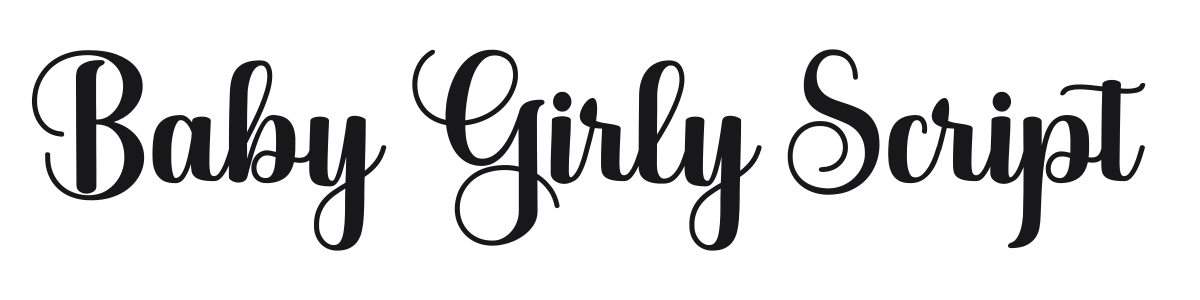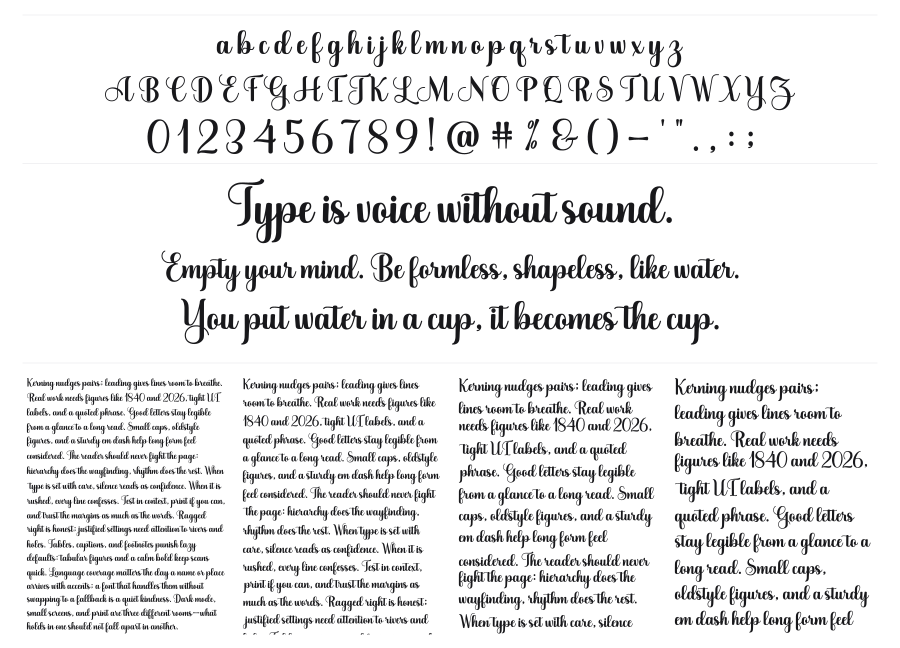
Baby Girly Script
Baby Girly Script is a bold, looping casual script with sweeping connected letters and lively stroke contrast. Tall ascenders and curling descenders give it an exuberant, handcrafted energy that reads instantly warm and upbeat. It works best at large sizes where the flowing curves and thick-thin rhythm can breathe.